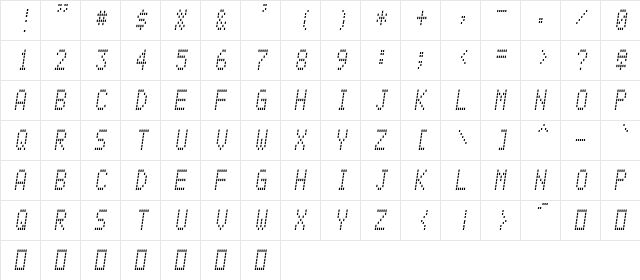
Alpine 7558M Normal Font Preview
Alpine 7558M Normal
Design Context for Alpine 7558M Typeface
Alpine 7558M offers clean, dependable letterforms without strong stylistic allegiance, making it a practical choice for designers who need flexibility.